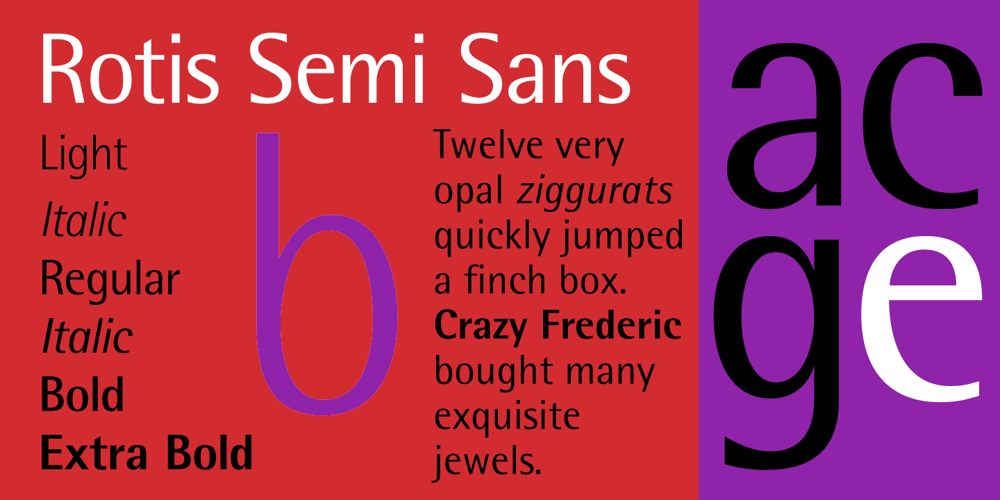
Rotis Semi Sans
Rotis Semi Sans font
Rotis Semi Sans Font Family was designed by Otl Aicher and published by Monotype. Rotis Semi Sans contains 18 styles and family package options. Rotis¿ is a comprehensive family group with Sans Serif, Semi Sans, Serif, and Semi Serif styles, for a total of 17 weights including italics. The four families have similar weights, heights and proportions; though the Sans is primarily monotone, the Semi Sans has swelling strokes, the Semi Serif has just a few serifs, and the Serif has serifs and strokes with mostly vertical axes. Designed by Otl Aicher for Agfa in 1989, Rotis has become something of a European zeitgeist. This highly rationalized yet intriguing type is seen everywhere, from book text to billboards. The blending of sans with serif was almost revolutionary when Aicher first started working on the idea. Traditionalists felt that discarding serifs from some forms and giving unusual curves and edges to others might be something new, but not something better. But Rotis was based on those principles, and has proven itself not only highly legible, but also remarkably successful on a wide scale. Rotis is easily identifiable in all its styles by the cap C and lowercase c and e: note the hooked tops, serifless bottoms, and underslung body curves. Aicher is a long-time teacher of design and has many years of practical experience as a graphic designer. He named Rotis after the small village in southern German where he lives. Rotis¿ is suitable for just about any use: book text, documentation, business reports, business correspondence, magazines, newspapers, posters, advertisements, multimedia, and corporate design.Today Rotis ia also available with pan european caracter set.